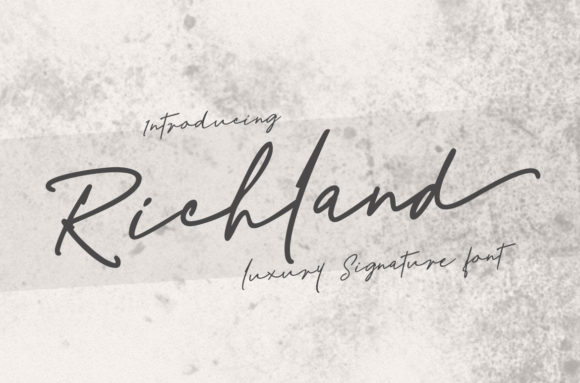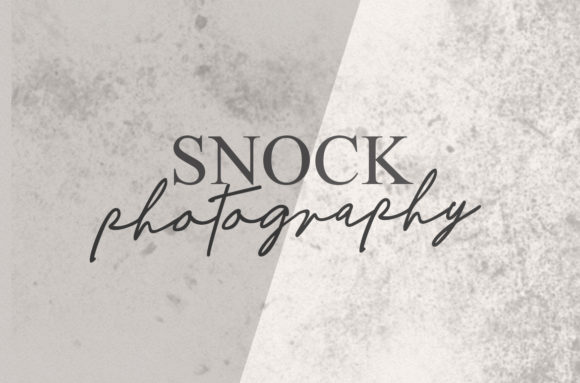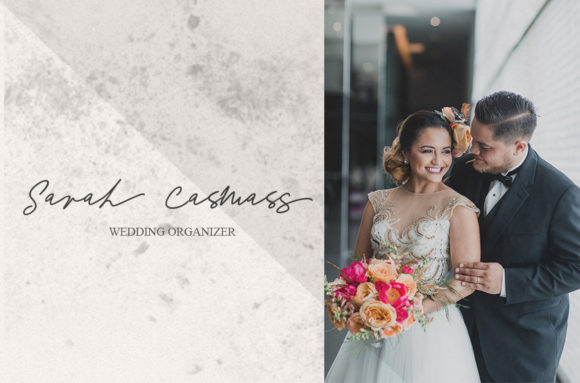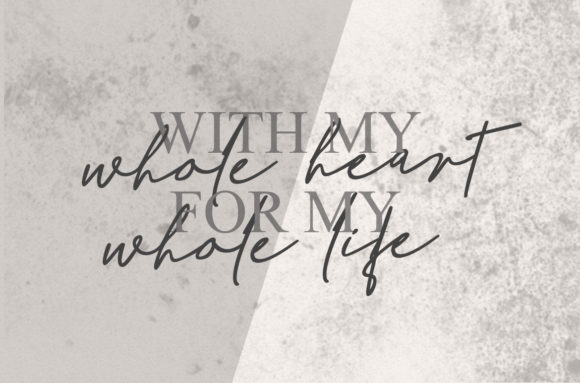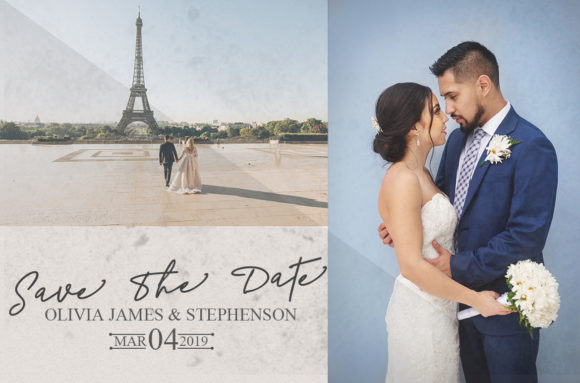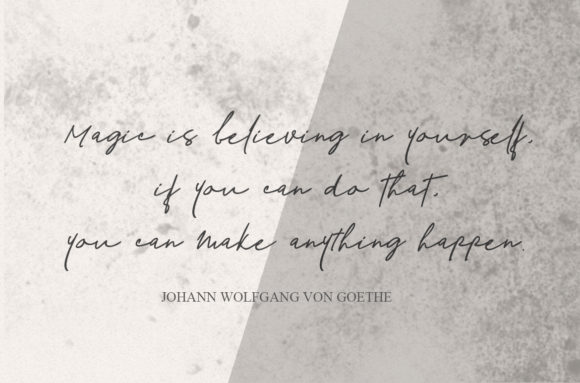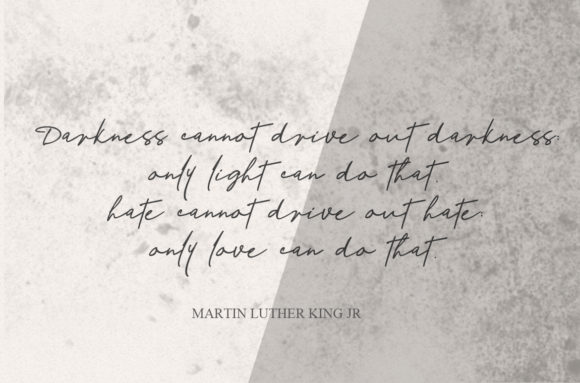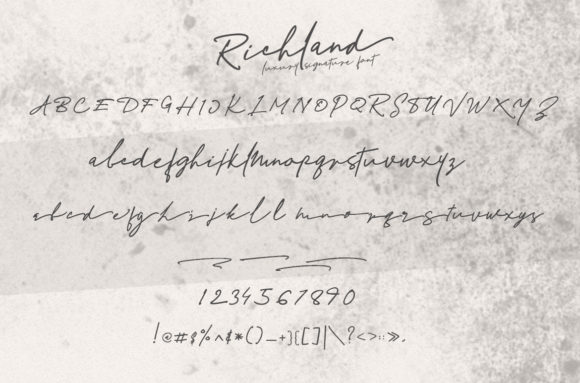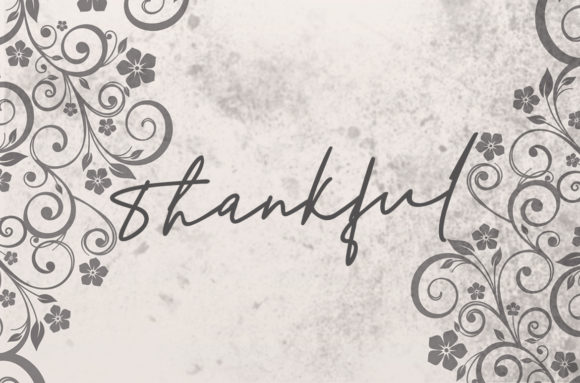
Richland Font
About Richland Font
The Richland is a beautiful signature font. It was created to meet your needs in creating elegant designs.
This natural typeface is perfect for branding, wedding invitations, magazines, mugs, business cards, quotes, posters, and more!